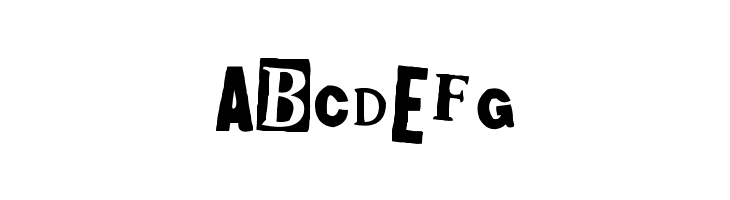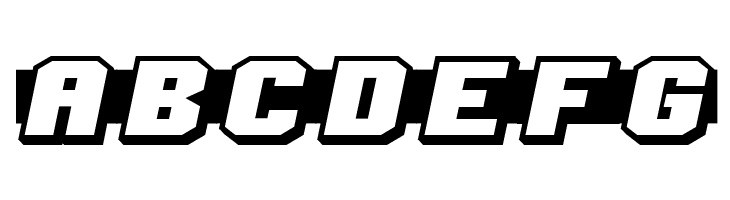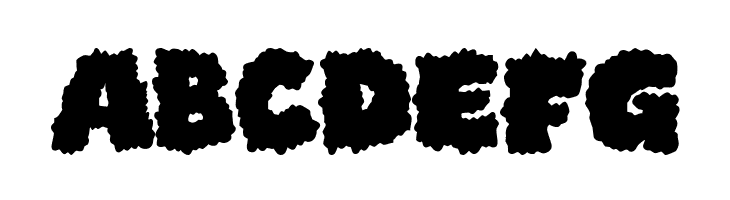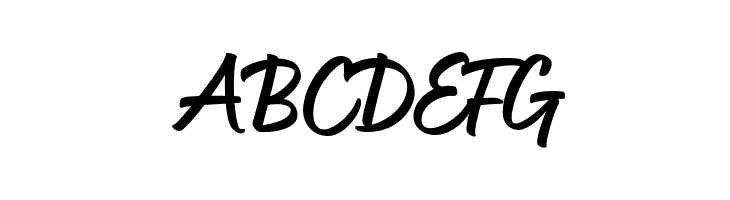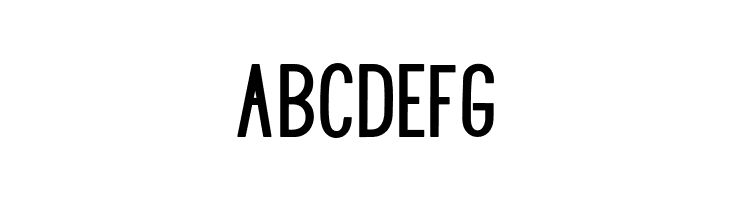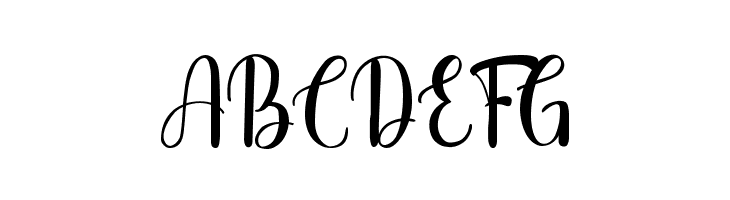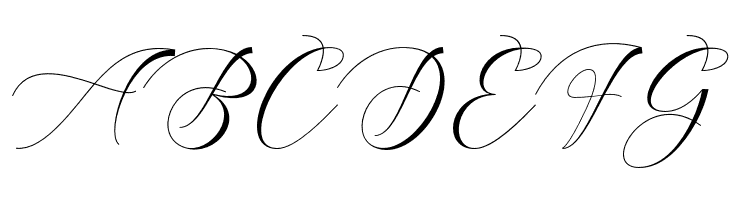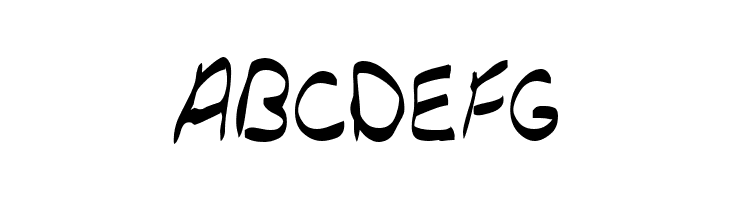
A bold, dynamic font with a three-dimensional effect and strong visual impact.
Decorative pictogram font with shooter-themed silhouettes.
A bold, tall sans-serif font with a modern, sleek appearance.
An elegant, flowing script font with graceful curves and decorative flourishes.
A playful and elegant script font with flowing, cursive design.
A dynamic and fluid script font with elegant curves and a playful yet sophisticated style.
A playful, eclectic font with a ransom note style.
A bold, textured font with a playful, cloud-like appearance.
Casual handwritten font with a playful style.